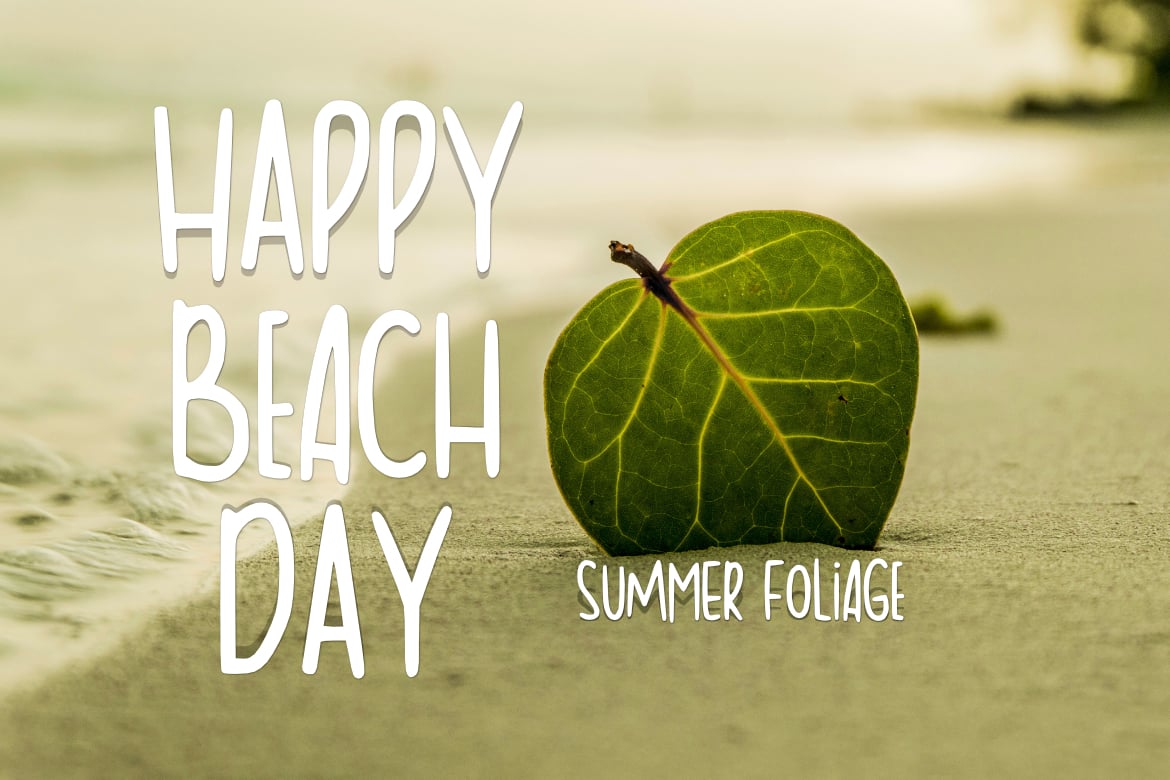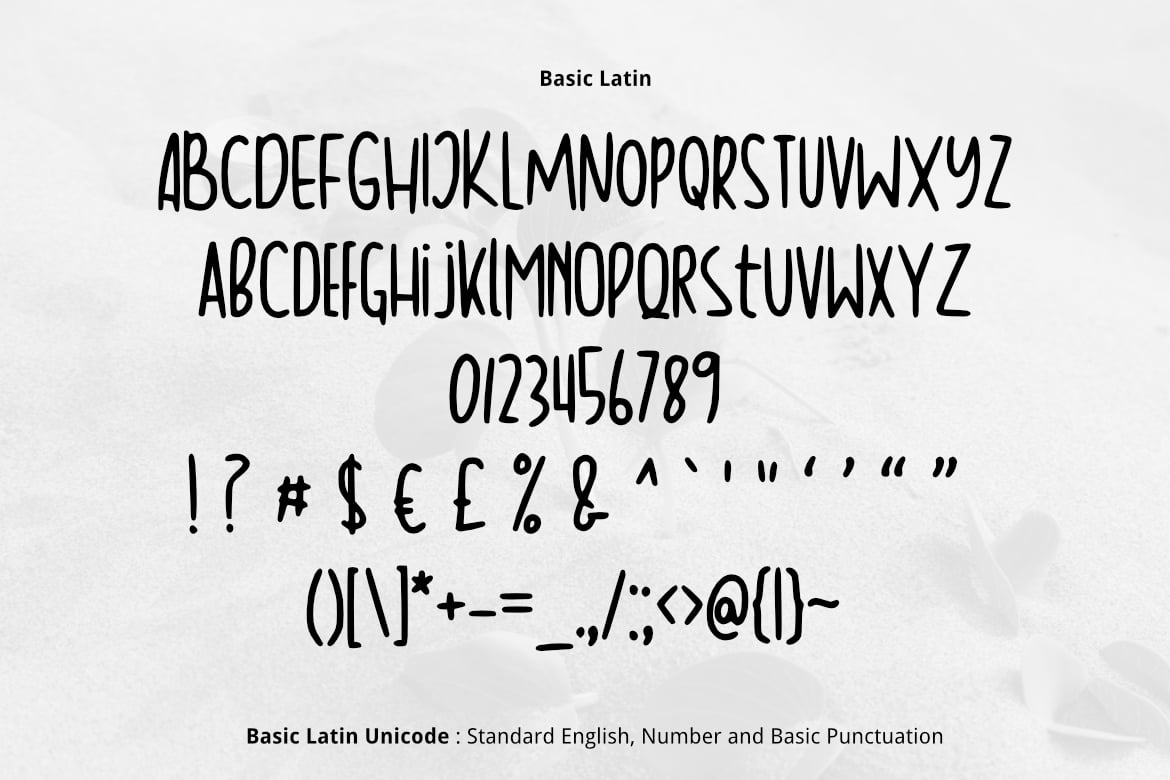
Summer Foliage Font
Summer Foliage is lovely , cute, simple, multipurpose handwritten font , suitable for many project children book, quotes, logo , heading , title etc. Summer and holiday font.
Basic Latin (Standard English character , number, symbol)